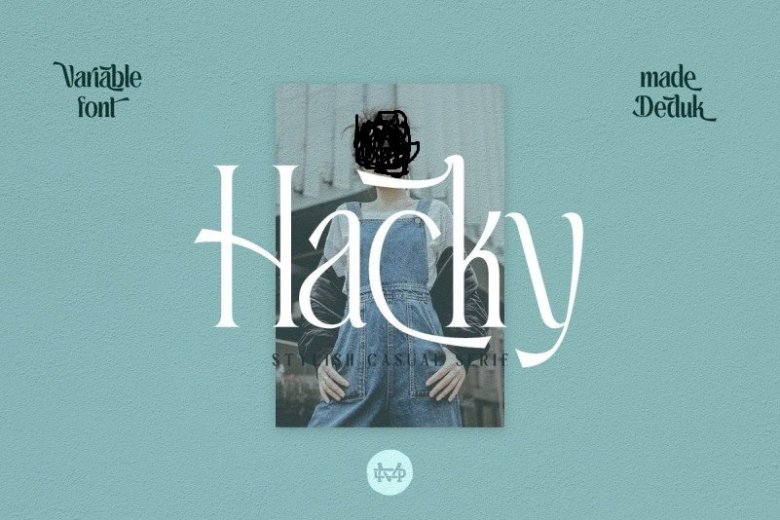
Hacky Serif Font Free
Introducing Hacky Serif Font– Modern Serif font inspired by the famous minimalist logo perfect for the purposes of designing templates, brochures, etc. Made from font designer named madeDeduk. And it’s a stylish luxury serif family. It’s clean and have the smooth angle with 9 variable weight and much alternative inside. Suitable to create any branding, product packaging, invitation, quotes, t-shirt, label, poster, logo etc.